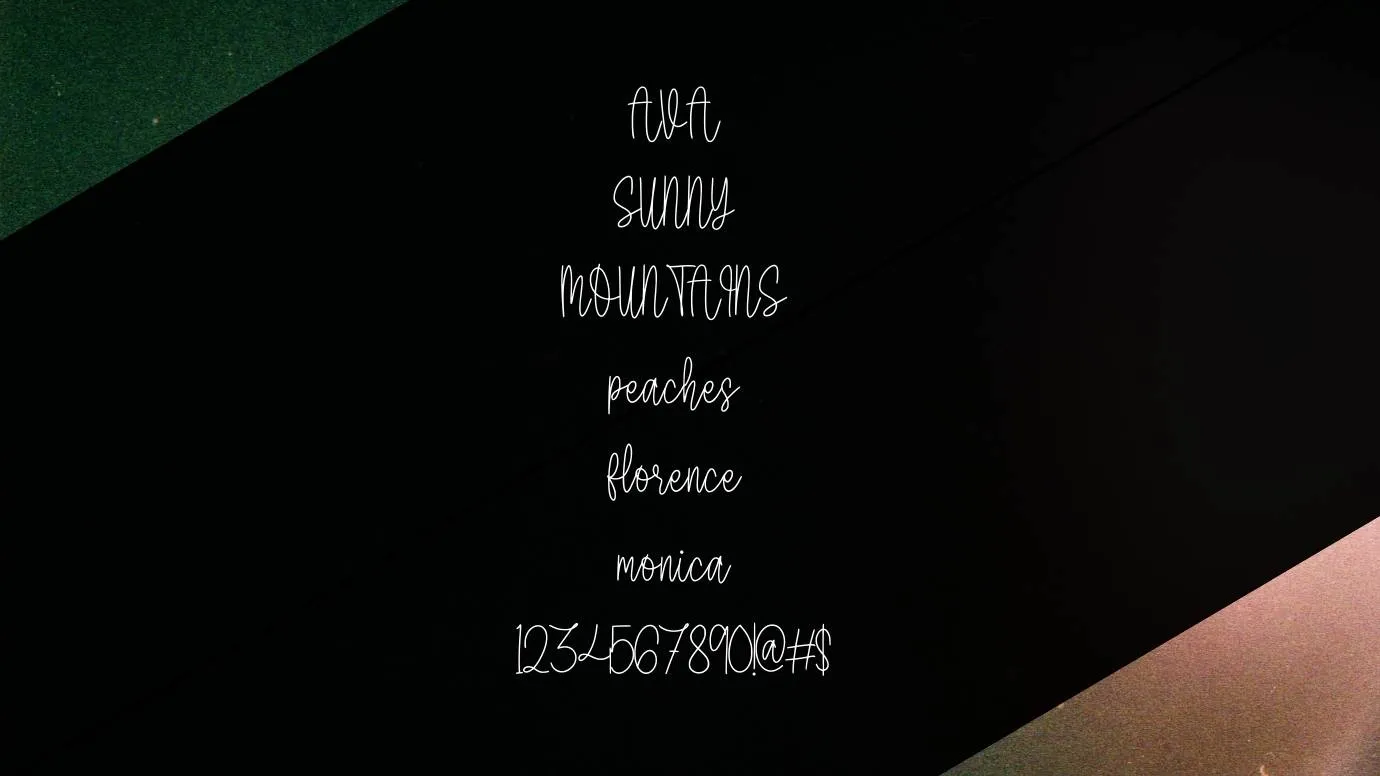
Berryline Font was designed by Walter Wegerer in 1967. The design is based on the lettering of the title screen of the film “The Thomas Crown Affair”. The font was named after the company that produced the film, Berryline pictures.
Berryline Font is a handwritten typeface with a unique design. The letters are very thin and close together, giving the font a modern and sleek look. The font is perfect for headlines and titles, and can also be used for body text in small sizes.
This is available in both regular and italic versions, as well as a number of different weights. The font includes both uppercase and lowercase letters, as well as numbers and symbols. It is a versatile font that can be used for a wide range of applications.
Creator of Berryline Font
Berryline Font was designed by Walter Wegerer in 1967. The design is based on the lettering of the title screen of the film “The Thomas Crown Affair”.
It combines different factors, including uppercase letters and unique symbols, glyphs, lower-case letters, digits, punctuations, characters, and numerous language support.
View of Berryline Font
| Name | Berryline Font |
| Designer | Walter Wegerer |